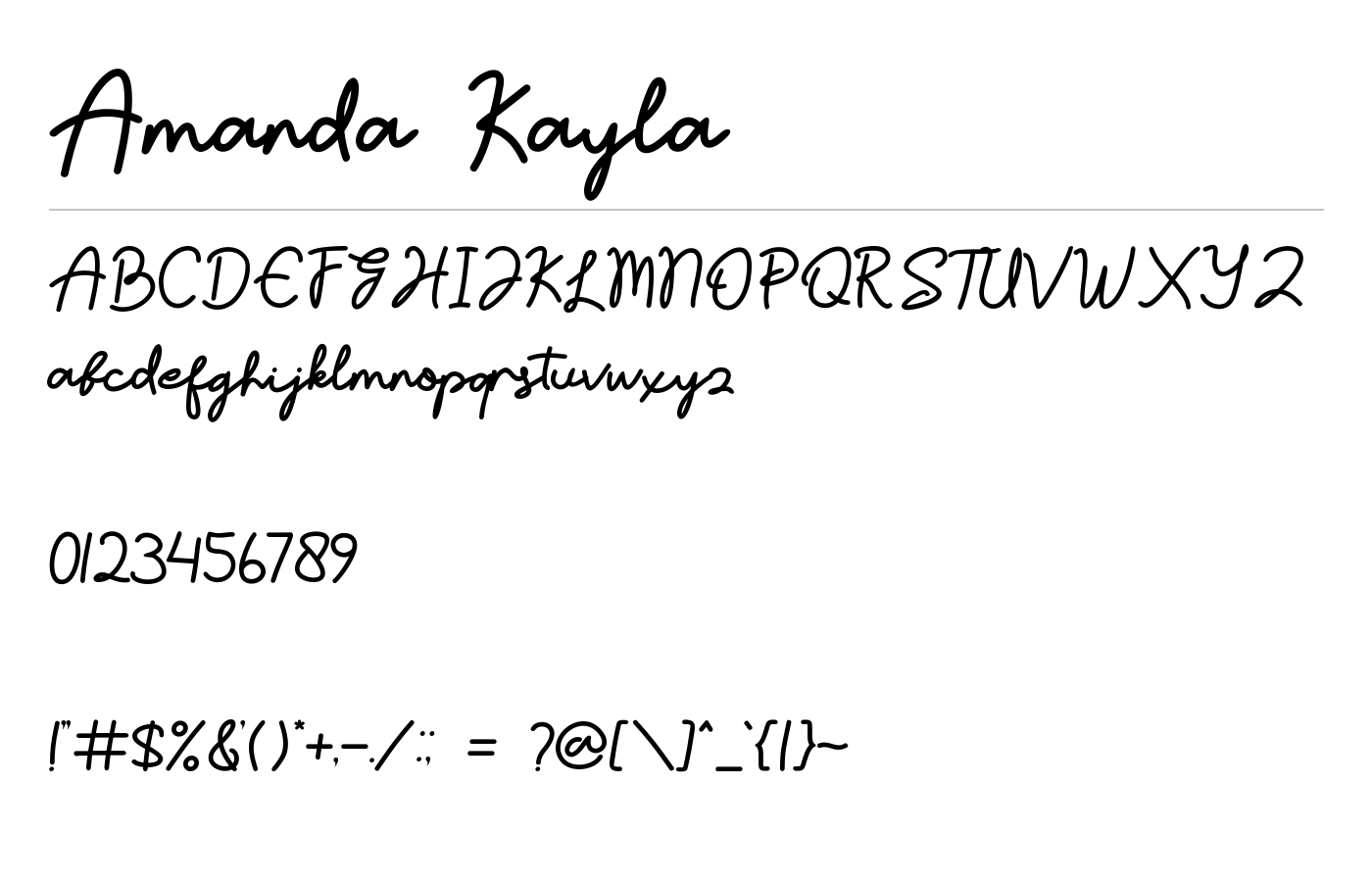
Amanda Kayla is a lively and elegant handwritten script font characterized by its smooth, flowing strokes and slightly playful letterforms. It combines medium weight with a natural, informal style that feels warm and personal, making it ideal for creative branding, invitations, and lifestyle projects. This font’s casual yet refined look works well for logos, social media graphics, and other designs where a friendly, approachable touch is desired.
Amanda Kayla Font